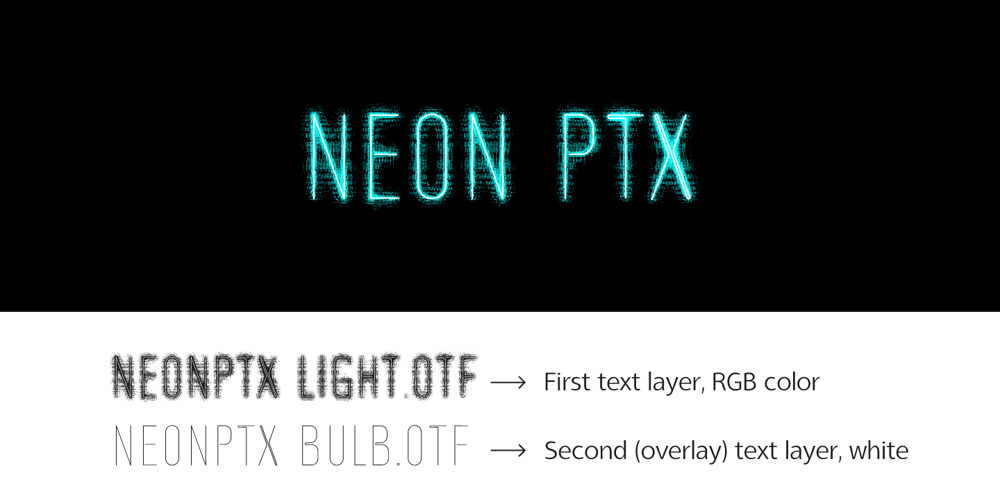
Neon PTx Font Family was designed by Pedro Teixeira and published by Pedro Teixeira. Neon PTx contains 2 styles and family package options. Relax and take time to see the benefits of purchasing this neon style font, low weight file, fast and easy run Designed by Pedro Alexandre Teixeira